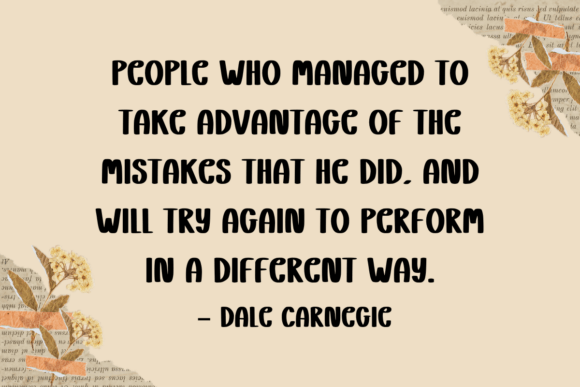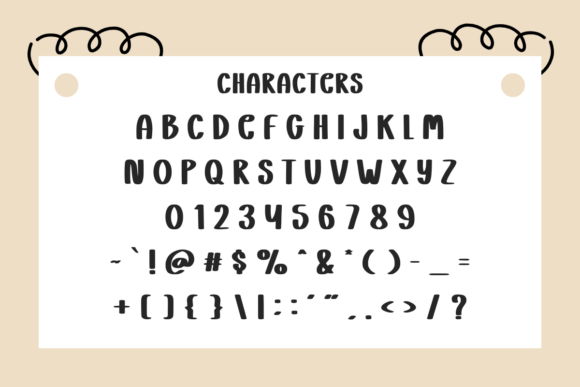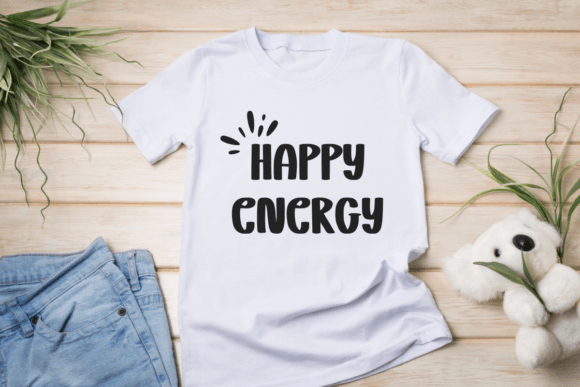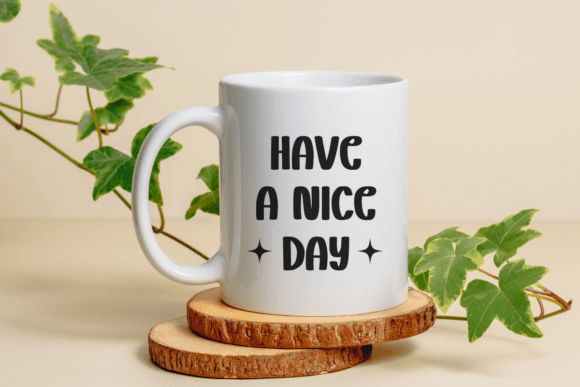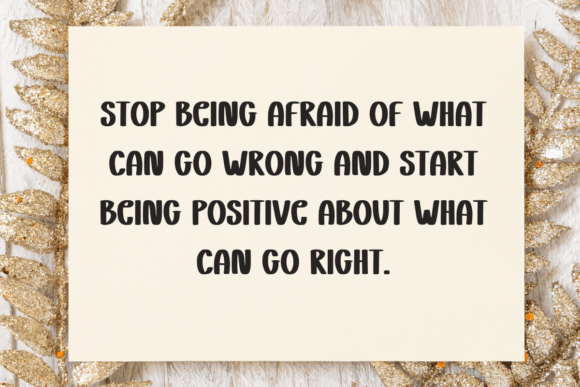
Introduction to Scrap Book Font
Have you ever found yourself rummaging through old family photos, searching for the perfect quote to add to your scrapbook? The nostalgia and memories that come with it are truly special. But what if I told you there’s a way to recreate that magic in your digital creative projects?
Enter Scrap Book Font, a high-quality sans serif font that’s perfect for designers looking to add a touch of whimsy to their work. With its unique and beautiful letters, this font is sure to make your design come alive. Whether you’re creating a logo, branding, or quotes, Scrap Book Font is an excellent choice for any creative project.
Key Features of Scrap Book Font
- Unique, hand-drawn design perfect for creative projects and scrapbook enthusiasts.
Honest Review: Scrap Book Font
I recently stumbled upon the Scrap Book Font, and I must say it’s been a game-changer for my creative projects. This design resource is perfect for anyone looking to add a vintage touch to their work.
- ⚠️ The font is not as versatile as some other design resources, making it better suited for specific projects.
- ⚠️ The vintage aesthetic may not be to everyone’s taste.
Overall, I’m really impressed with the Scrap Book Font. It’s a high-quality design resource that’s perfect for designers working on creative projects that require a vintage or distressed look. I would definitely recommend it to anyone looking for a free download with a transparent background.
Common Use Cases for Scrap Book Font
Scrap Book Font is perfect for various creative projects, including invitations, posters, social media graphics, logos, and typography-based designs. Its high-quality design and versatility make it a valuable resource for designers and non-designers alike.